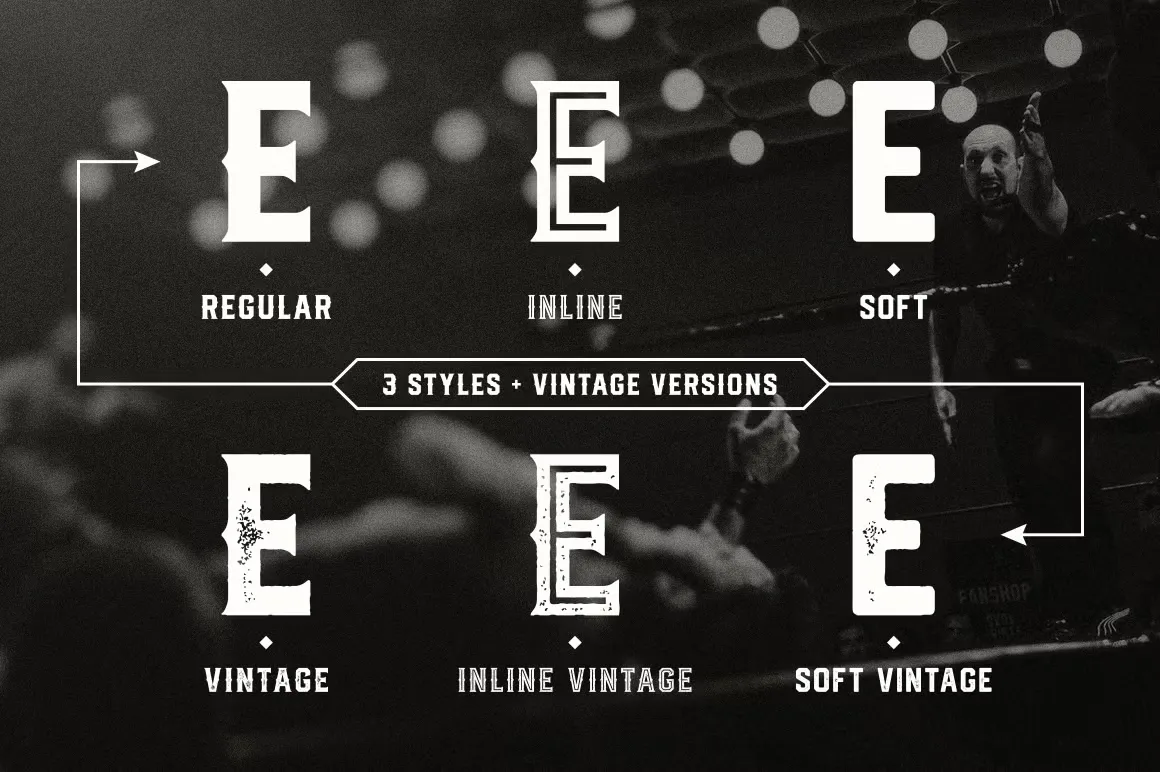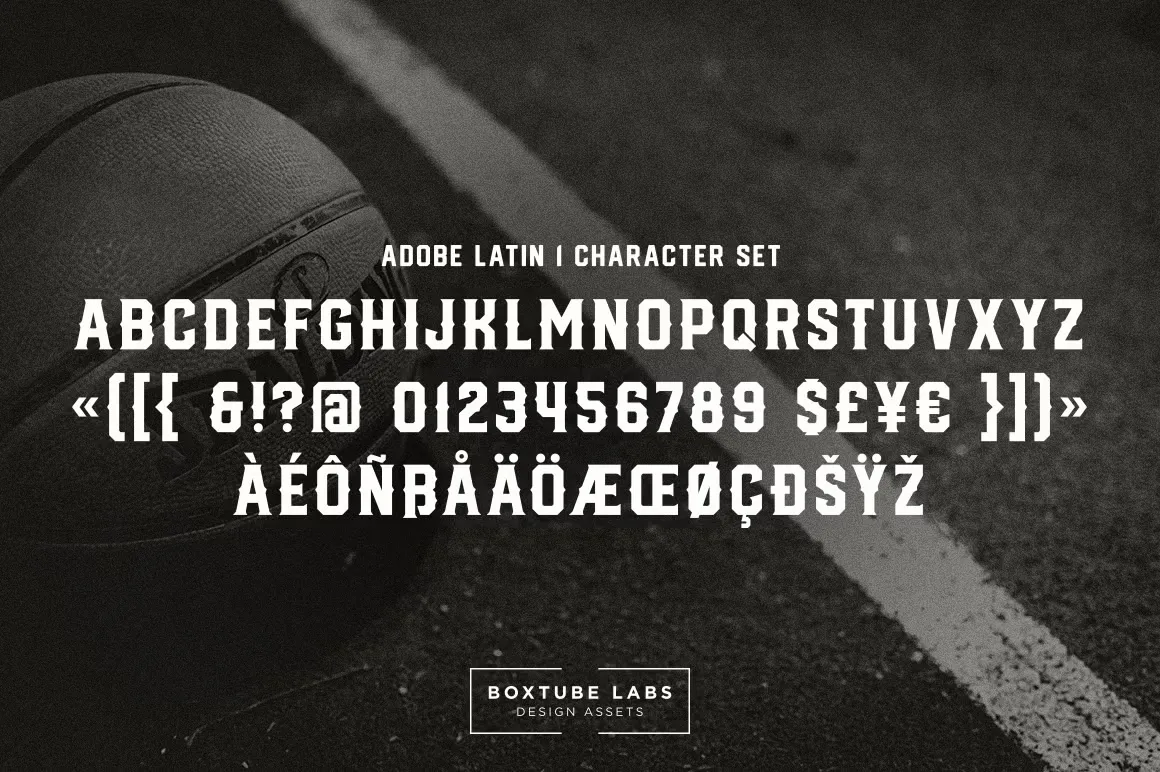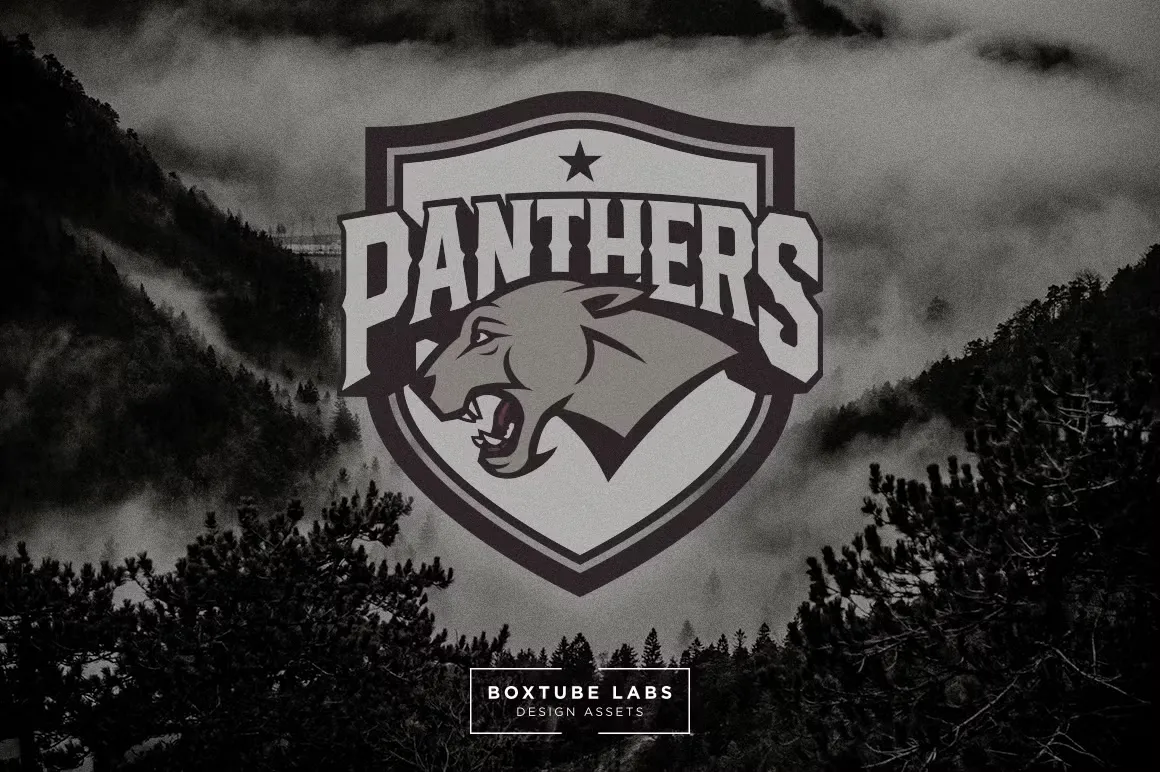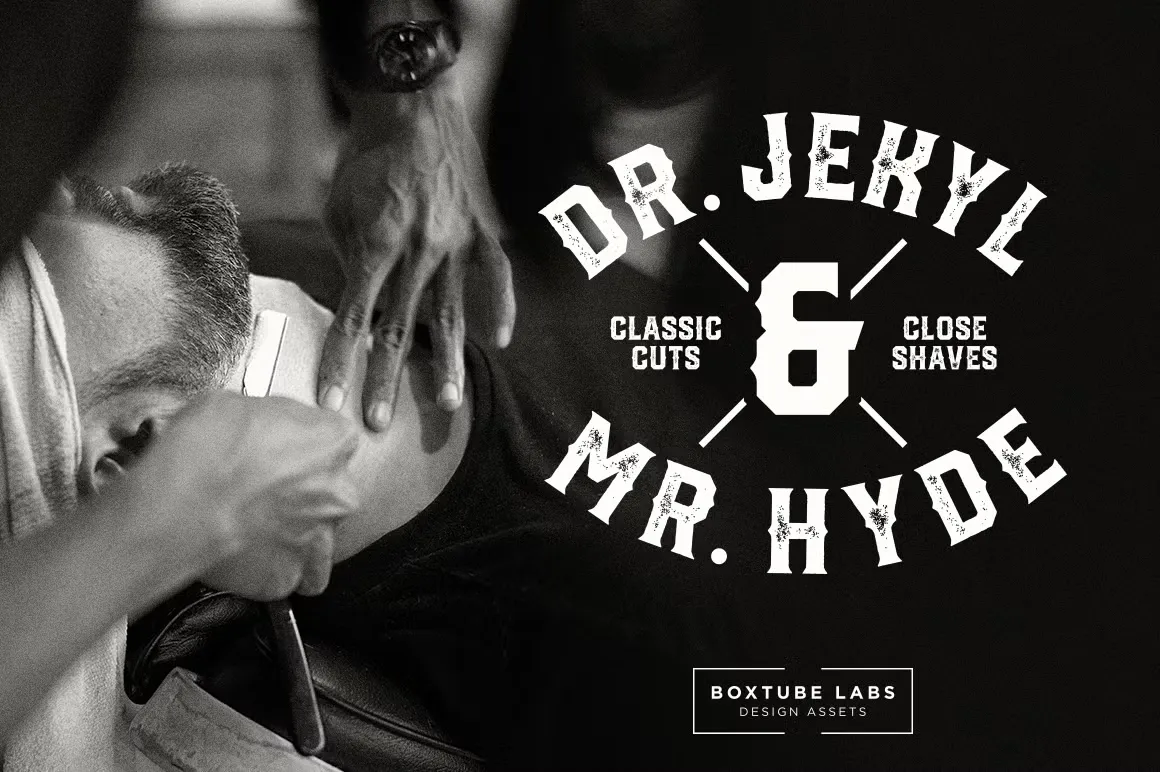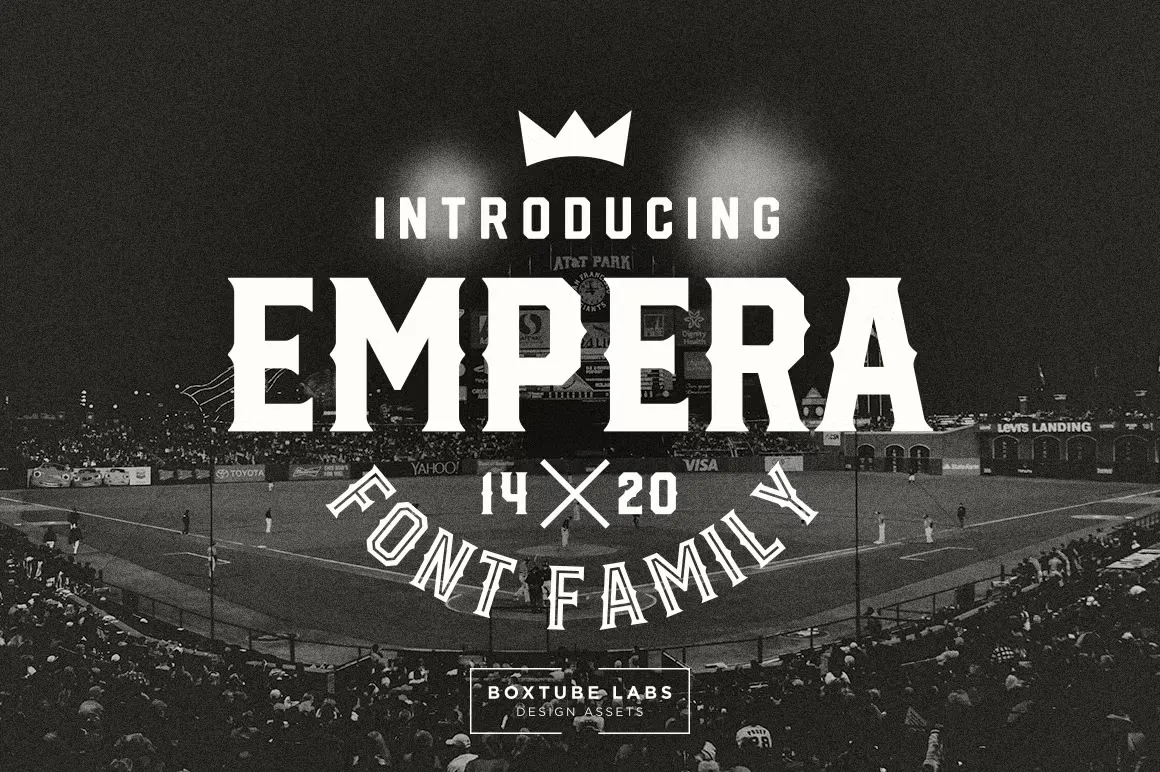
About Empera Font
I’m a typographer and graphic designer who often works with brands looking for strong, impactful typography. While building a sports-inspired identity package, I came across the Empera Font. The moment I saw it, I knew it could deliver the bold, confident appearance I wanted. I found it while browsing BoxTube Labs’ typeface collection and immediately tested it in logo mockups. It brought that athletic yet vintage feel that works perfectly for apparel and promotional graphics. After seeing it perform so well across different applications, I wanted to share my thoughts for anyone considering it for their next design project.
What Is the Empera Font?
Empera Font is an athletic font family designed by BoxTube Labs with versatility and strength in mind. It comes in six designs: Empera Regular, Inline, Inline Vintage, Soft, Soft Vintage, and Vintage. These styles provide flexibility whether you’re creating sports logos, posters, or apparel design.
The typeface includes both upper- and lowercase vintage characters with a natural worn look. This adds authenticity to designs, making them appear aged without losing legibility. The font features a full Adobe Latin 1 character set, supporting western languages from Afrikaans to Swedish, as well as Basque, Breton, Catalan, Danish, Dutch, Finnish, Gaelic, Icelandic, Indonesian, Norwegian, Portuguese, Sami, and Swahili.
The glyph set is comprehensive and comes in both OTF and TTF formats. Its structure makes it suitable for desktop, webfont, and mobile use on iOS and Android. The serif elements are bold but not overwhelming, making it equally effective for branding collateral and vintage-style graphics. For designers working in Photoshop, InDesign, or vector-based tools, it integrates smoothly into most workflows.
Features of the Empera Font
The standout feature of Empera is its detailed vintage character set. The natural worn look is carefully crafted, so every letter feels authentic. This makes it ideal for retro sports branding or apparel graphics where texture adds value.
Its bold and confident appearance ensures text stands out in large formats, whether in posters or oversized merchandise prints. The six included styles let you adapt tone and weight without switching fonts, giving you control over hierarchy in your layouts.
Support for the full Adobe Latin 1 character set means it’s ready for multilingual projects. Each version includes upper- and lowercase characters, numbers, punctuation, and special symbols. The opentype features give you professional-level typographic options.
It’s compatible across desktop, webfont, and mobile platforms. Whether working on mockups for apparel or creating real production files, the font holds clarity. This cross-platform reliability makes it a go-to for brand systems that need consistency in both print and digital spaces.
For anyone who values a typeface that merges strength with vintage charm, Empera Regular Font and its family deliver the full package.
The Empera Font is perfect for sports branding, team logos, and athletic apparel lines. The bold, sturdy strokes convey energy and reliability, while the vintage textures add personality. It works just as well in apparel design as in promotional material for events.
For posters and large-scale graphics, its strong letterforms ensure visibility from a distance. In apparel, it translates well to embroidery, screen printing, and heat transfer, maintaining detail even at smaller sizes.
It also suits lifestyle brands wanting a retro, athletic vibe. For desktop publishing, it fits into typography sets of Empera Regular that can be applied to brochures, catalog covers, or packaging. Online, it works well as a webfont for headers and hero text.
The multilingual support makes it appealing for global campaigns. If you design for mockups, vector objects, or commercial use, its range of styles will cover almost any layout. Whether you are creating for a brand, sports event, or vintage versions of merchandise, Empera helps elevate your designs and maintain a consistent visual voice.